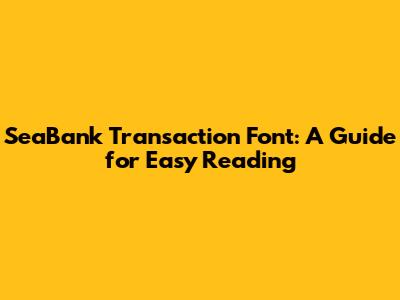
Hey guys! Ever squinted at your SeaBank transaction history, trying to decipher those tiny numbers and letters? You're not alone! The font used in transaction details can sometimes be a real pain, especially when you're trying to quickly verify a payment or check your balance. In this article, we're diving deep into the world of SeaBank transaction fonts, exploring why they matter, how they impact your user experience, and what you can do to make reading them easier. We will explore all about understanding the importance of clear transaction fonts, the impact of poor readability on user experience, and practical tips for improving font visibility in your SeaBank app. So, grab a cup of coffee, and let's get started!
Understanding the Importance of Clear Transaction Fonts
When it comes to banking, clarity is key. Imagine trying to balance your checkbook or reconcile your accounts with transaction details that are barely legible. Frustrating, right? The font used in your SeaBank transaction history plays a crucial role in ensuring that you can easily and accurately understand your financial activity. Clear transaction fonts are essential for several reasons. Firstly, they reduce the risk of errors. Misreading a decimal point or confusing similar-looking characters can lead to significant financial mistakes. For instance, mistaking $100.00 for $1,000.00 could have serious consequences. Secondly, clear fonts save you time. Instead of squinting and struggling to decipher each transaction, you can quickly scan your history and identify any discrepancies or unusual activity. Time is money, after all! Thirdly, easy-to-read fonts enhance your overall user experience. A well-designed font can make the difference between a smooth, efficient banking experience and a frustrating, time-consuming one. Think about it: when you can effortlessly read your transaction details, you feel more in control of your finances and more confident in your bank's services. In today's fast-paced world, where we're constantly bombarded with information, clear and legible fonts are more important than ever. Banks like SeaBank have a responsibility to prioritize readability in their apps and online platforms, ensuring that their customers can easily access and understand their financial information. This includes choosing fonts that are not only aesthetically pleasing but also highly functional and easy on the eyes. By investing in high-quality fonts and user-friendly design, SeaBank can demonstrate its commitment to customer satisfaction and build trust with its users.
The Impact of Poor Readability on User Experience
Alright, let's talk about what happens when the font is just…bad. Poor readability in SeaBank's transaction details can have a surprisingly big impact on your overall experience. First off, it leads to frustration. Nobody wants to feel like they're decoding a secret message just to see where their money went. This frustration can lead to dissatisfaction with the app and even make you consider switching to a different bank. Think about it: when you're already stressed about managing your finances, the last thing you need is a hard-to-read transaction history adding to your anxiety. Secondly, poorly designed fonts can increase the risk of errors. When characters are too small, too thin, or too similar, it's easy to misread important details like the amount of a transaction, the date, or the name of the recipient. These errors can lead to costly mistakes, such as paying the wrong bill or overlooking fraudulent activity. Imagine accidentally overpaying a bill because you misread the amount due – that's a headache you definitely want to avoid. Thirdly, difficult-to-read fonts can create accessibility issues for users with visual impairments. People with low vision or other visual challenges may struggle to decipher small or poorly designed fonts, making it difficult for them to manage their finances independently. This can be a major barrier to financial inclusion and can leave vulnerable individuals feeling excluded and underserved. Moreover, unclear fonts can also impact your perception of SeaBank as a whole. If the app is difficult to use or aesthetically unappealing, you may start to question the bank's commitment to customer service and innovation. In today's competitive banking landscape, where users have so many options to choose from, it's crucial for banks to prioritize user experience and ensure that their apps are easy to use and visually appealing. By investing in readable fonts and user-friendly design, SeaBank can create a positive user experience that fosters customer loyalty and strengthens its brand reputation.
Practical Tips for Improving Font Visibility in Your SeaBank App
Okay, so the font isn't great. What can you do about it? While you can't directly change the font used by SeaBank, there are several things you can do to improve font visibility and make your transaction history easier to read. First, adjust your device's display settings. Both Android and iOS devices allow you to increase the font size and adjust the display brightness, which can make a big difference in readability. Go to your device's settings menu and look for the "Display" or "Accessibility" options. From there, you should be able to customize the font size and brightness to your liking. Experiment with different settings until you find a combination that works best for you. Secondly, use the zoom function. Most smartphones and tablets have a built-in zoom function that allows you to magnify the screen. This can be especially helpful when you need to focus on a specific transaction or detail. Simply pinch the screen with two fingers to zoom in, and then drag your fingers to move around the screen. Thirdly, consider using a screen magnifier app. There are many apps available that can magnify the screen and enhance the contrast, making text and images easier to see. These apps can be particularly useful for users with visual impairments. Search for "screen magnifier" in your app store and try out a few different options to see which one works best for you. Fourthly, provide feedback to SeaBank. If you're struggling to read the transaction details, let SeaBank know! They may be able to improve the font or design of the app in future updates. You can usually find a feedback form or contact information on the SeaBank website or within the app itself. Be specific about what you find difficult to read and suggest possible solutions. The more feedback SeaBank receives, the more likely they are to address the issue. Fifthly, take breaks and rest your eyes. Staring at a screen for long periods can cause eye strain and fatigue, making it even harder to read small fonts. Take frequent breaks to rest your eyes and avoid prolonged screen time. Follow the 20-20-20 rule: every 20 minutes, look at something 20 feet away for 20 seconds. This can help reduce eye strain and improve your overall visual comfort. By following these practical tips, you can make your SeaBank transaction history easier to read and improve your overall banking experience. Remember, clear and legible fonts are essential for financial clarity and peace of mind.
The Future of Fonts in Banking Apps
Looking ahead, the future of fonts in banking apps is all about personalization and accessibility. Banks are increasingly recognizing the importance of user-centered design and are investing in technologies that allow users to customize their banking experience. In the future, we may see SeaBank and other banks offering users the ability to choose their preferred font, font size, and color scheme within the app. This would allow users to tailor the app to their individual needs and preferences, making it easier and more enjoyable to use. Imagine being able to select a font that is specifically designed for readability or a color scheme that is optimized for low-light conditions. This level of personalization would be a game-changer for many users, particularly those with visual impairments or other accessibility needs. Furthermore, artificial intelligence (AI) may play a role in optimizing font selection. AI algorithms could analyze a user's viewing habits and preferences and automatically suggest fonts that are best suited to their needs. For example, if a user frequently zooms in on transaction details, the AI could recommend a larger font size or a font with thicker characters. Voice-activated banking is also becoming increasingly popular, and this trend is likely to impact the future of fonts in banking apps. As more users rely on voice commands to manage their finances, the need for visual clarity may decrease. However, fonts will still play a role in providing visual confirmation of transactions and account balances. In addition to personalization and AI, accessibility will continue to be a major focus in the future of fonts in banking apps. Banks are under increasing pressure to comply with accessibility standards and ensure that their apps are usable by people of all abilities. This includes choosing fonts that are legible for users with visual impairments and providing alternative text descriptions for images and icons. By embracing innovation and prioritizing user needs, SeaBank and other banks can create banking apps that are not only functional but also enjoyable and accessible for everyone. The future of fonts in banking apps is bright, and we can expect to see many exciting developments in the years to come.
So, there you have it! While the SeaBank transaction font might not be perfect, understanding its importance and knowing how to work around its limitations can make a big difference. Remember, clear fonts are crucial for accuracy, efficiency, and overall user satisfaction. By adjusting your device settings, using zoom functions, and providing feedback to SeaBank, you can improve font visibility and take control of your banking experience. And who knows, maybe SeaBank will listen to our feedback and give us some font customization options in the future! Keep an eye out for updates and stay proactive in managing your financial information. You got this!